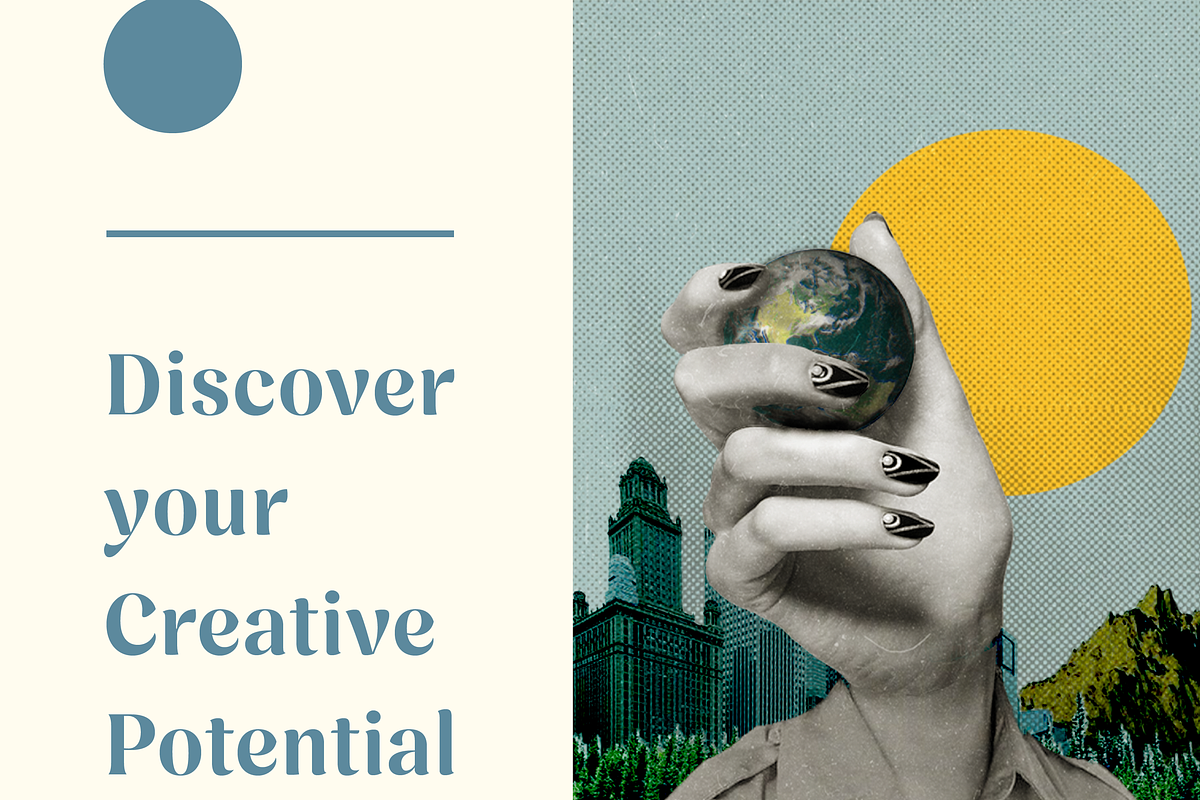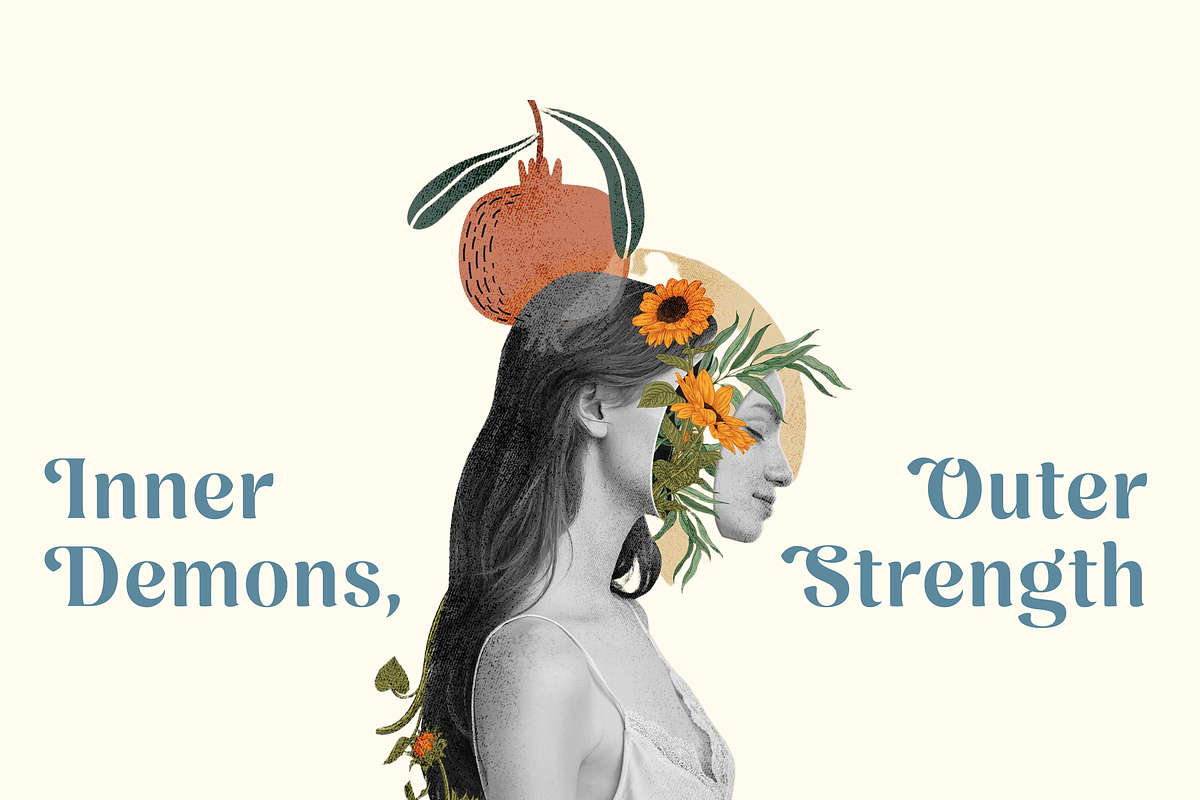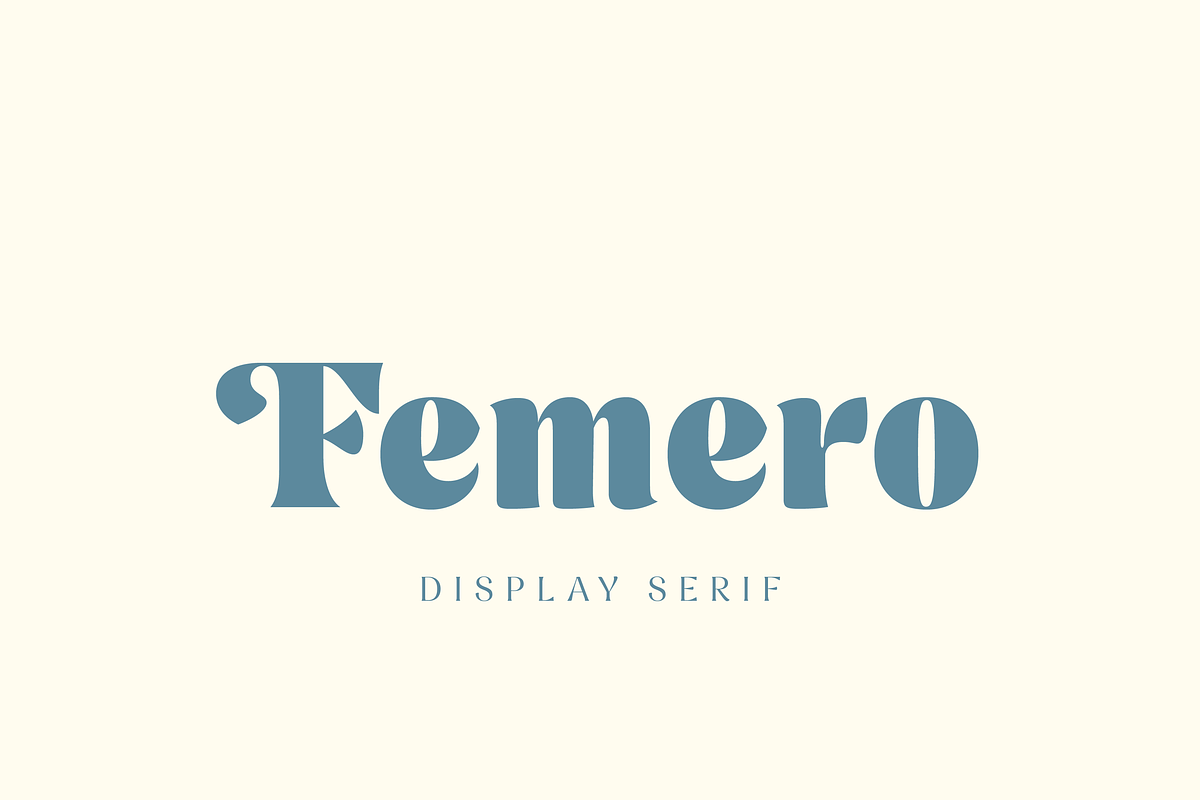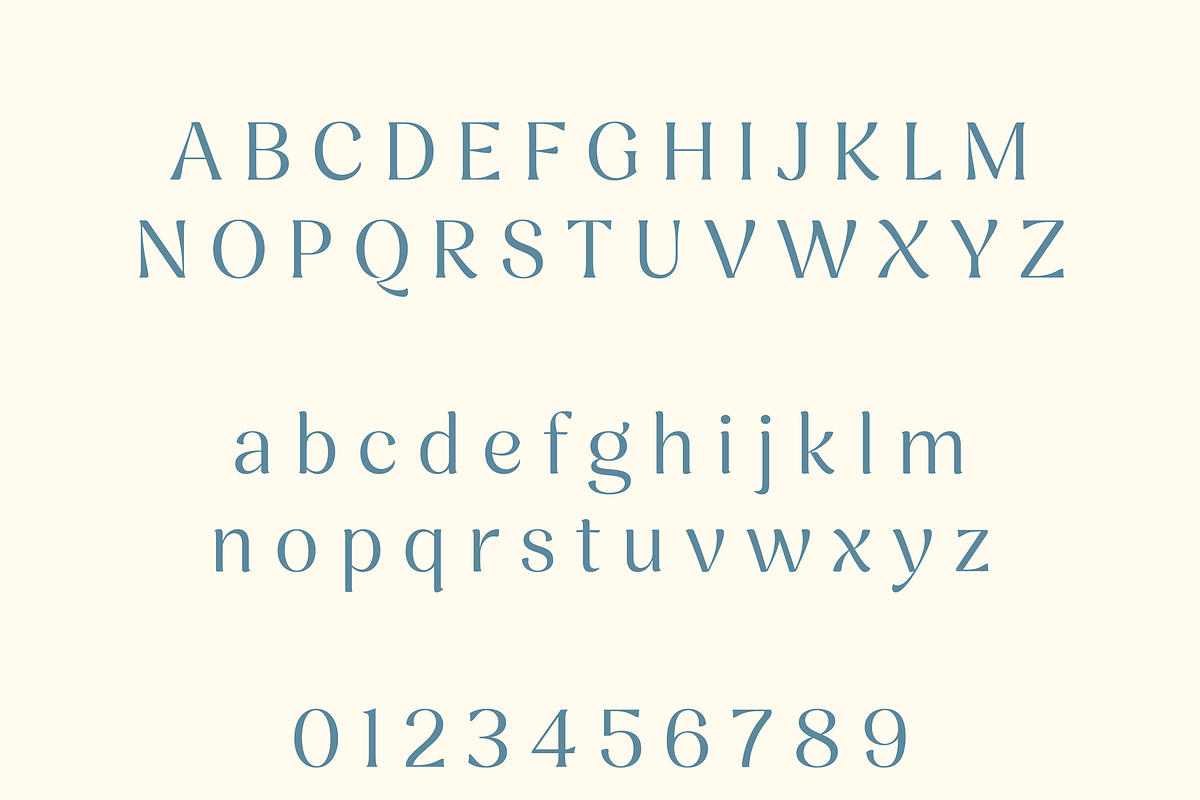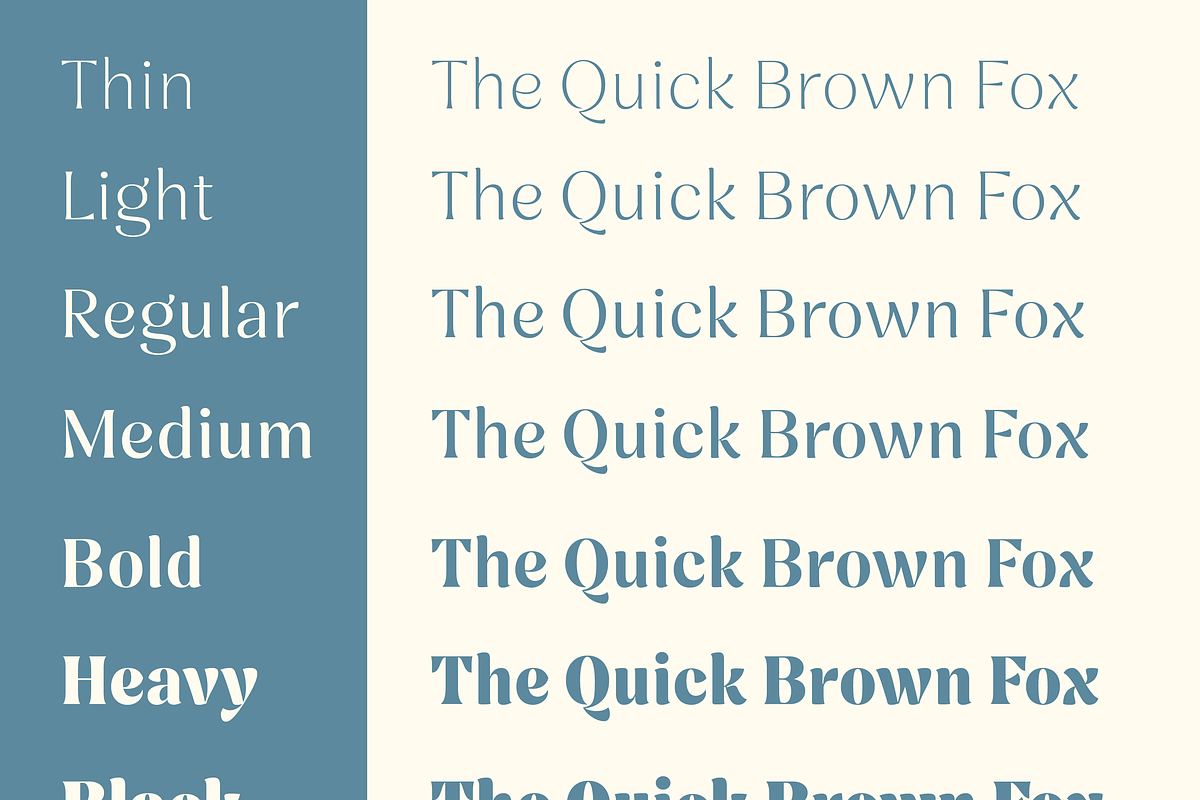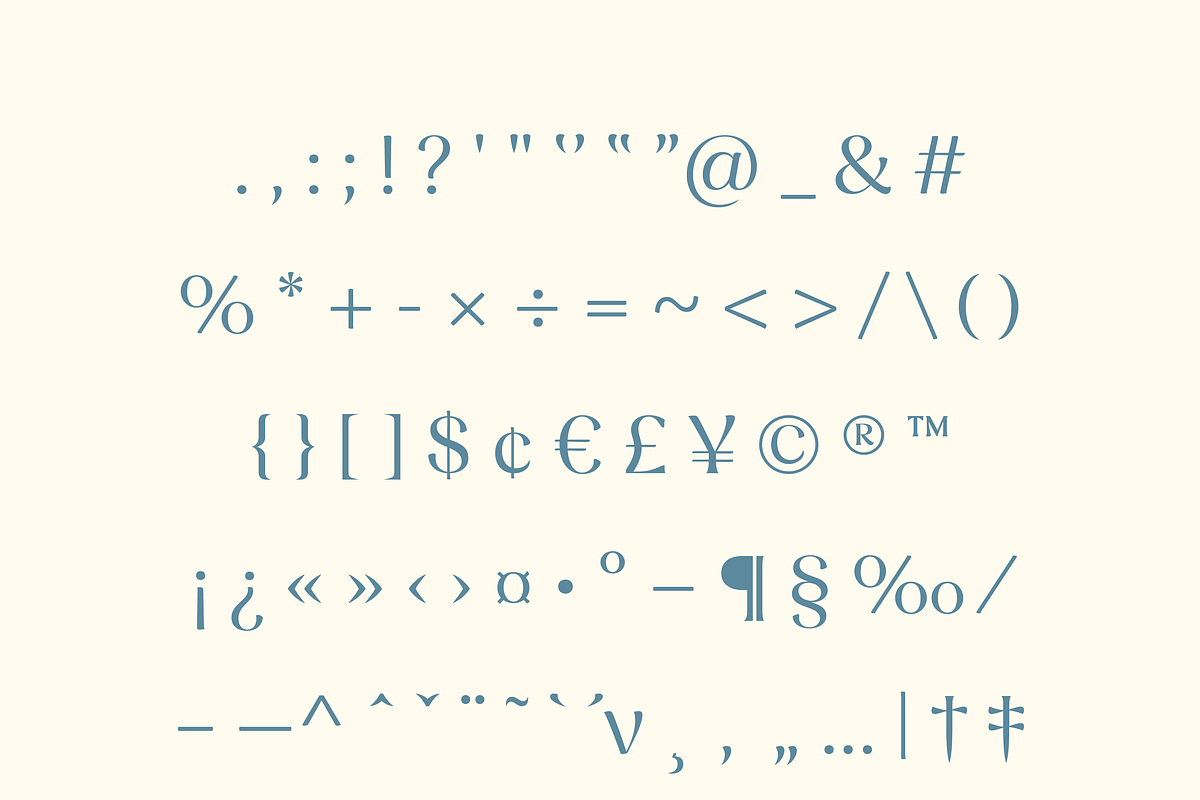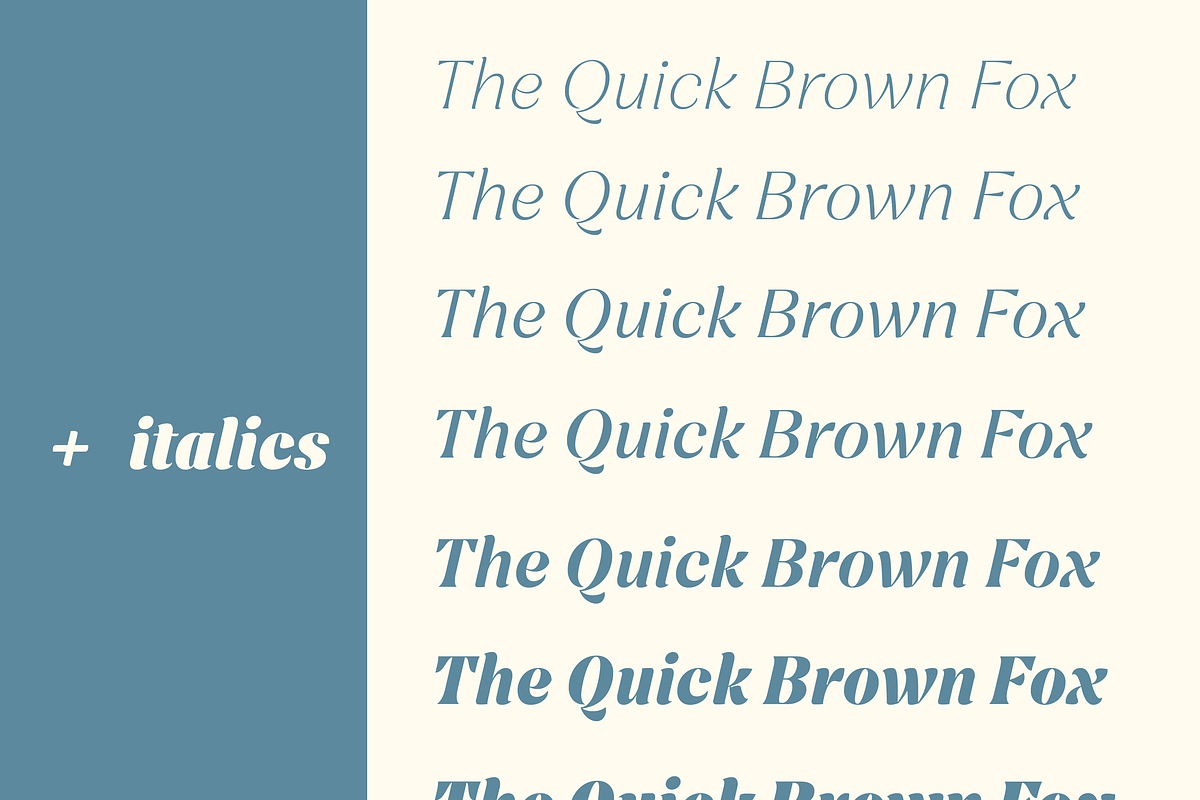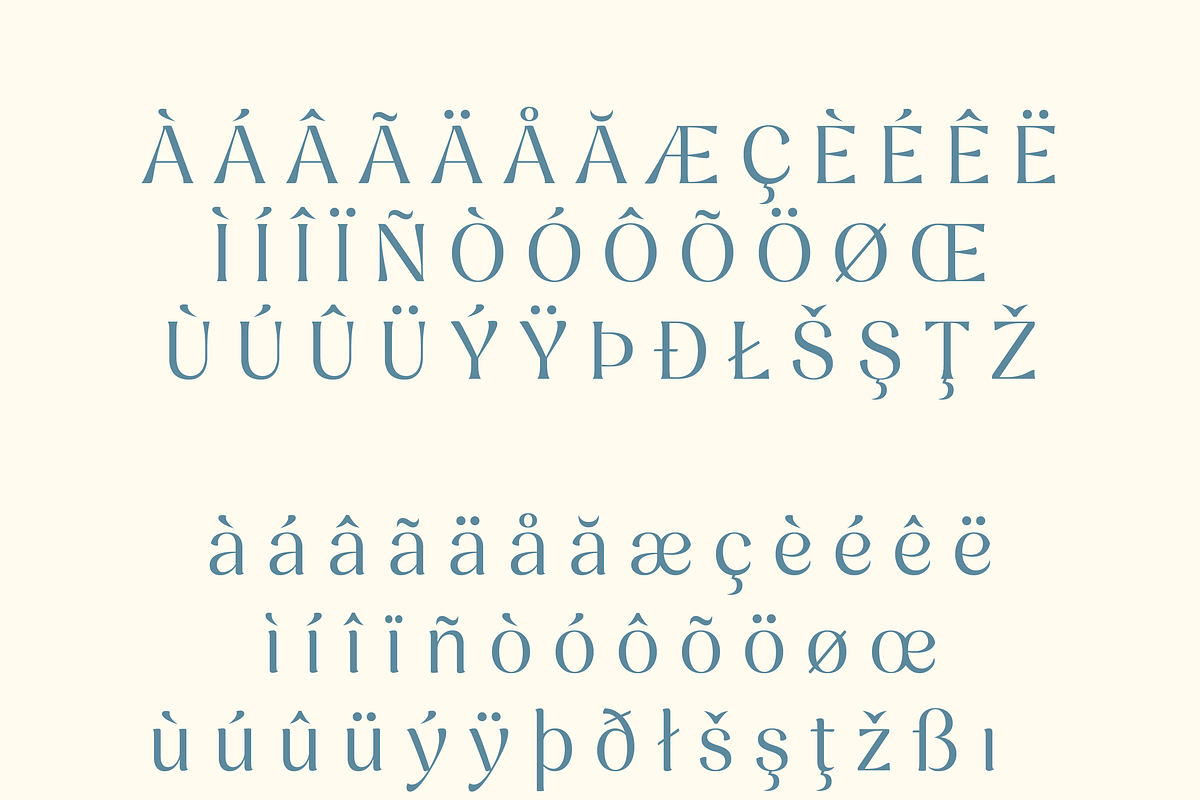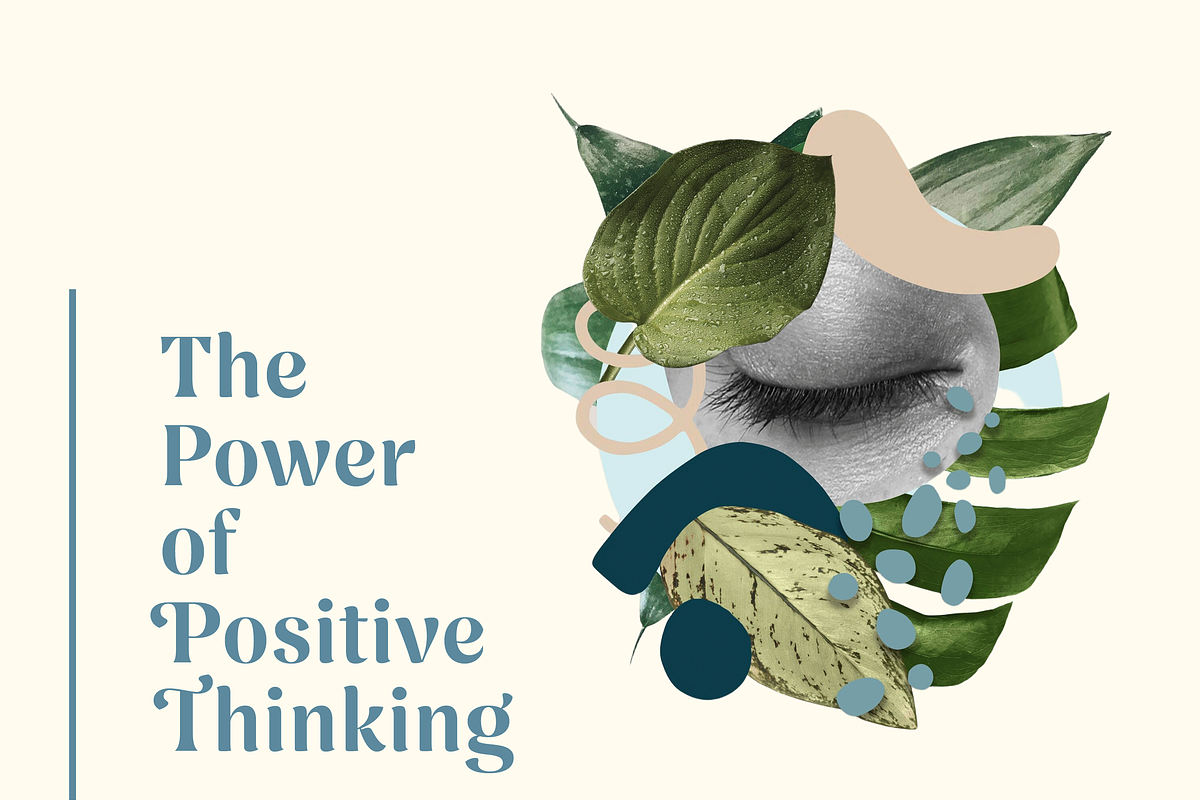
Femero - Modern Serif Family
Femero – Harmonizing Tradition with Creativity
Femero is a refined typeface that blends traditional structure with fluid, expressive inner forms. Its structured outer shapes combined with dynamic curves offer a beautiful balance of elegance and sophistication. Whether you're designing luxury branding, editorial layouts, or modern design concepts, Femero adds an undeniable charm to your work.
• 7 Weights + Italics: Offers flexibility for various design needs. • Ideal for: Luxury branding, editorial design, packaging, and modern projects.